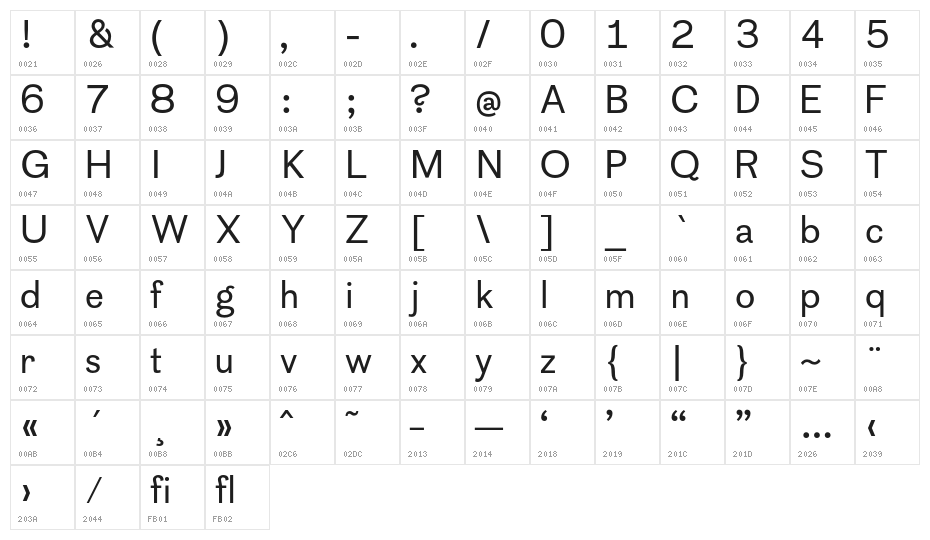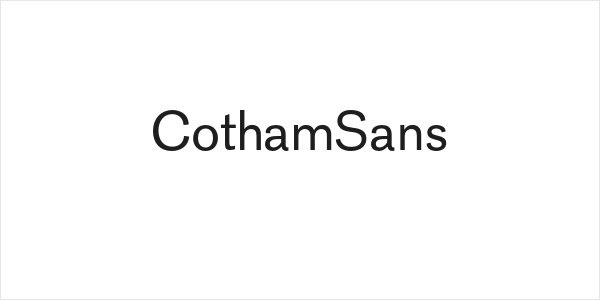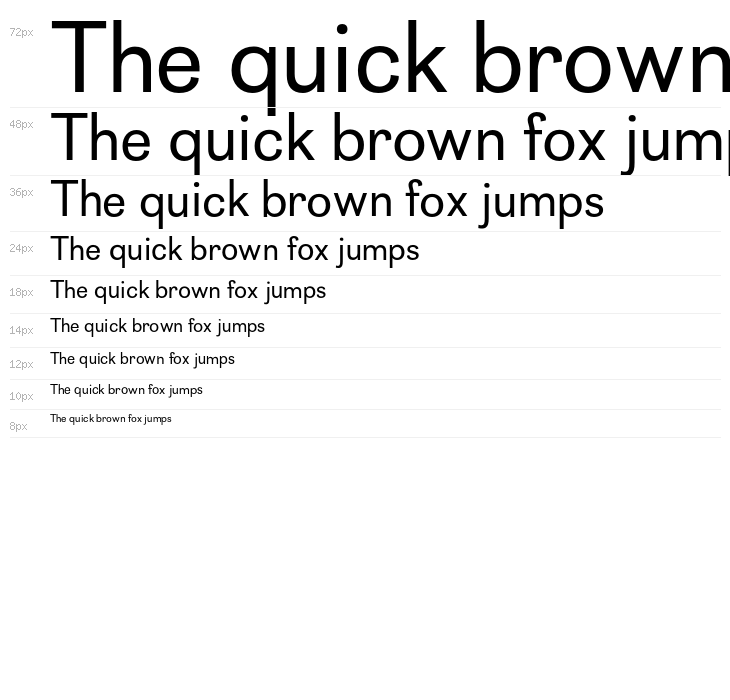
CothamSans Font
CothamSans Description
This font showcases a clean and modern sans-serif style, characterized by its simplicity and readability. The letters are evenly spaced, with a consistent stroke width that gives it a balanced appearance. The uppercase letters are bold and assertive, while the lowercase letters maintain a friendly and approachable look. The numerals are clear and distinct, making them easy to read. Special characters are well-defined, adding to the font's versatility. Overall, this font is suitable for a wide range of applications, from digital interfaces to print media.
| Proposed Projects | Ideal for web design, branding, corporate materials, and user interfaces. |